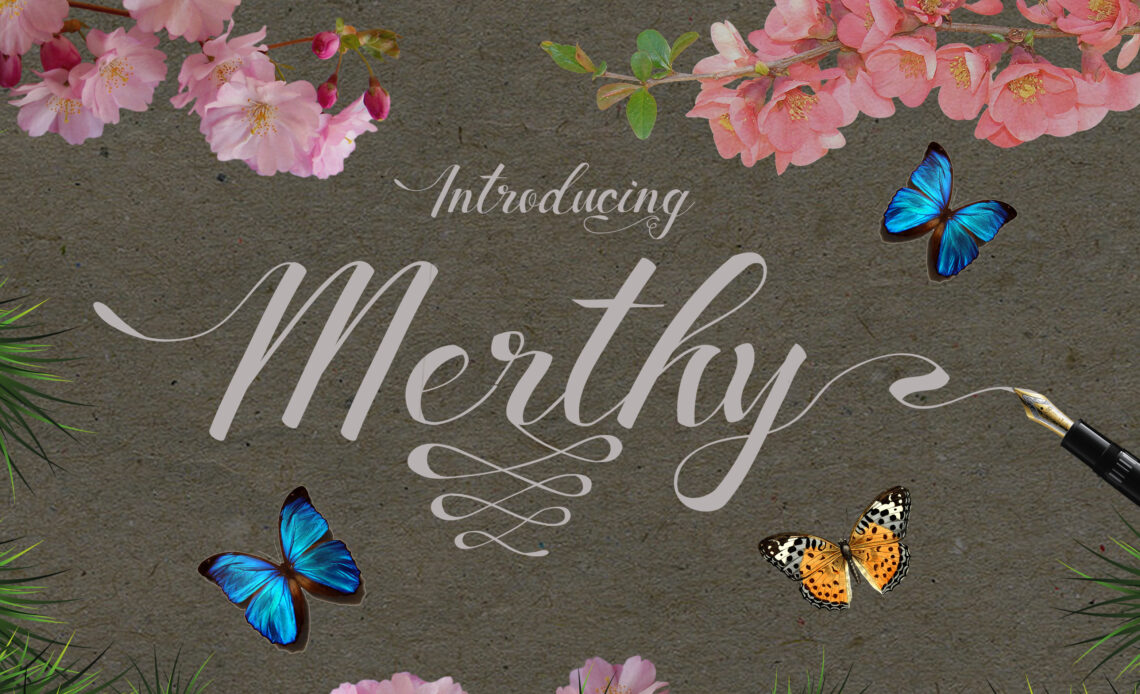
Merthy Font
Prepare to be mesmerized by Merthy, an exquisite handwritten script font that will ignite your creativity and elevate your designs to new heights. Step into a world of elegance and charm as Merthy's graceful curves and playful flourishes dance across your screen.
Crafted by the talented madeDeduk, Merthy boasts a generous repertoire of over 350 glyphs, empowering you to express your unique style with infinite possibilities. Each letter has been meticulously designed to exude a touch of whimsy and sophistication, making Merthy the perfect choice for projects that demand both personality and professionalism.
Whether you're a seasoned designer or just starting your creative journey, Merthy has something to offer everyone. Its versatility knows no bounds, making it an ideal companion for everything from heartfelt invitations and whimsical branding to eye-catching social media posts and captivating website headers.
With Merthy at your fingertips, you'll discover a whole new level of creative expression. Embrace the beauty of handwritten fonts and let your imagination soar. Every stroke of Merthy carries the essence of artistry and inspiration, inviting you to create designs that are both timeless and captivating.
So why settle for ordinary fonts when you can have extraordinary? Immerse yourself in the world of Merthy and experience the transformative power of a truly exceptional script font. Let Merthy ignite your creativity and paint your designs with a touch of magic.